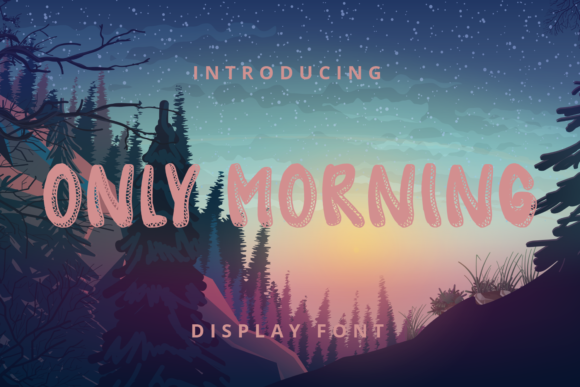
Only Morning: A Font Symphony for Baby Business in a Digital World
Immerse yourself in the world of Only Morning, a display font family designed to capture the captivating charm of baby-related businesses in the digital sphere. Crafted with meticulous precision by nicetrip7, this font symphony merges elegance and playfulness to create a distinctive visual identity for your brand.
With Only Morning, each letter dances across the screen, evoking a symphony of joy and tenderness. Its intricate details and flowing lines bestow an enchanting feel, making it the perfect choice for logos that demand attention and leave a lasting impression. Picture your brand's name adorned in Only Morning, exuding a captivating elegance that entices customers to delve deeper into your baby-centric offerings.
Step into the world of Only Morning and explore the boundless possibilities it offers. Let your imagination run wild as you craft eye-catching wedding invitations that set the tone for a day filled with love and laughter. Unleash your creativity in designing unique headings that add a touch of sophistication to your website, captivating readers from the very first glance. Create distinctive t-shirts and letterheads that embody the essence of your baby business, leaving a lasting impression on clients and customers alike.
Embark on a visual journey as Only Morning transforms signage, labels, and news into vibrant expressions of your brand's personality. Picture your products adorned with labels that whisper stories of quality and care, enticing customers to reach out and discover the magic within. Utilize the font's versatility to create striking posters that announce your latest promotions, capturing the attention of passersby and drawing them into your enchanting baby world. Design badges that proudly display your brand's commitment to excellence, building trust and recognition among your valued customers.
With Only Morning, the possibilities are endless. It's more than just a font; it's an artistic muse, empowering you to craft a visual narrative that resonates with your target audience. Dive into the enchanting realm of baby-related businesses and let Only Morning orchestrate a symphony of success for your brand.